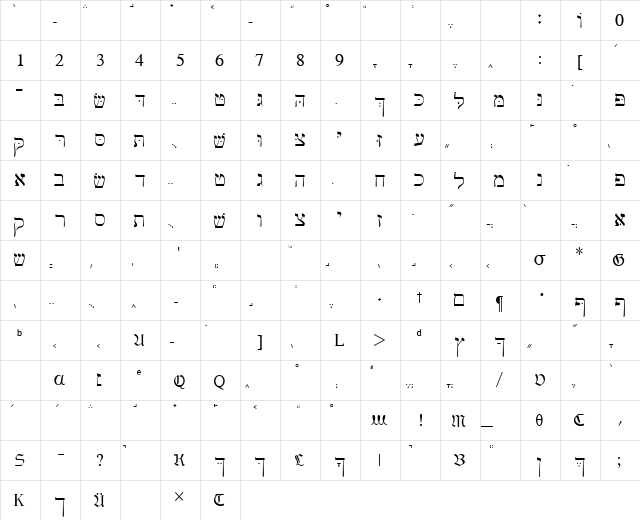
HebraicaII Regular
Design Context for HebraicaII Typeface
HebraicaII is a composed and adaptable typeface that performs quietly and consistently across a wide range of design contexts.